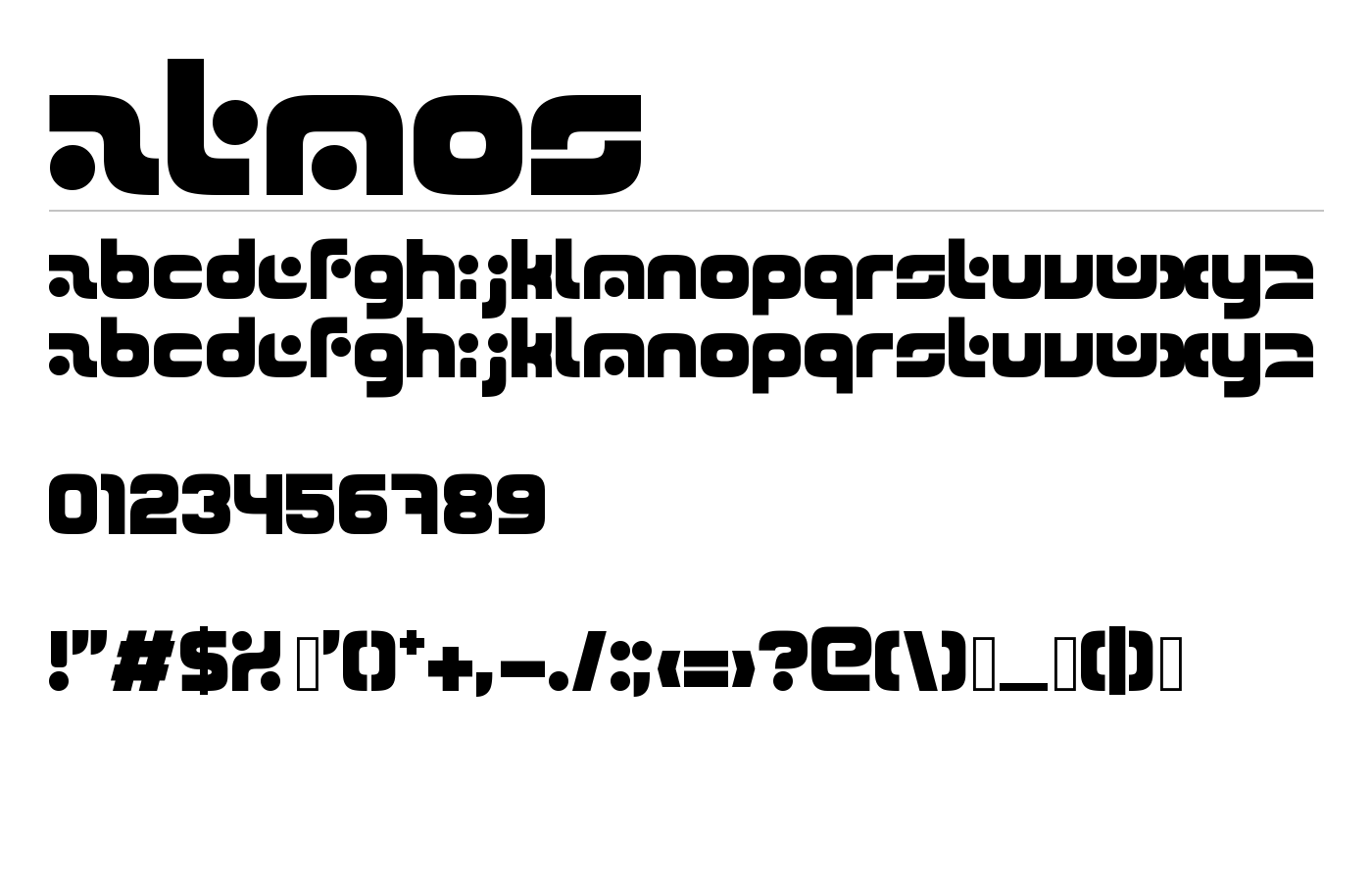
Atmos is a bold, geometric sans serif with a strong, modern vibe characterized by its thick strokes, rounded corners, and unique modular letterforms. Its compact width and high x-height make it impactful for display use, especially in futuristic branding, tech logos, or edgy editorial headlines. This font excels where a distinctive, contemporary, and playful personality is needed to draw attention and convey innovation.
Atmos Font